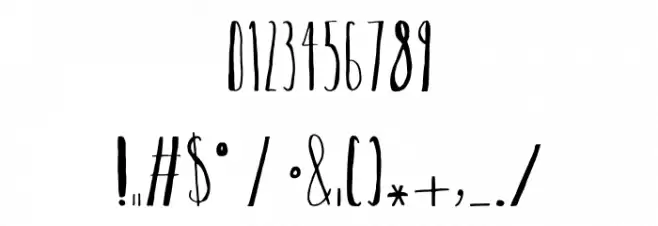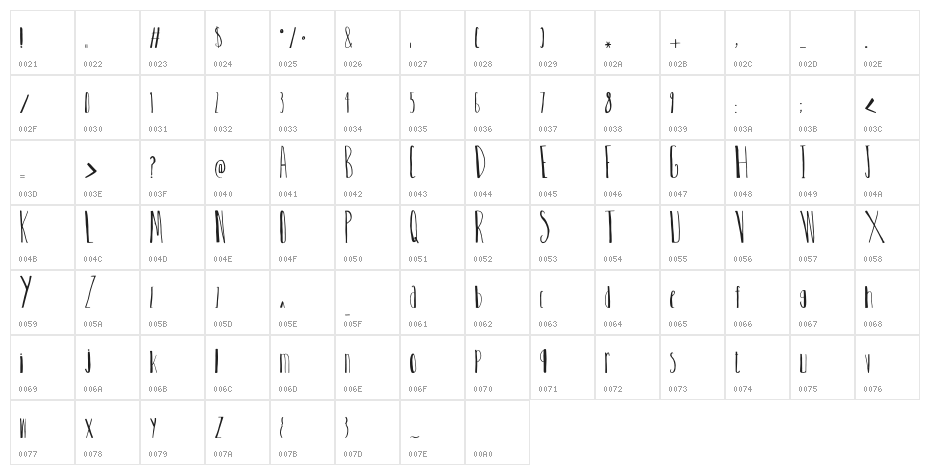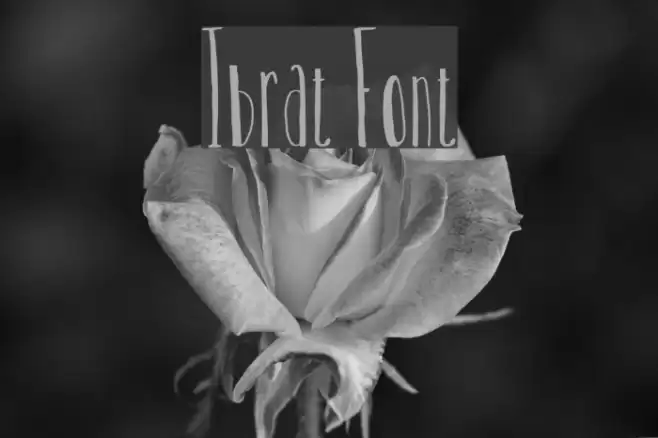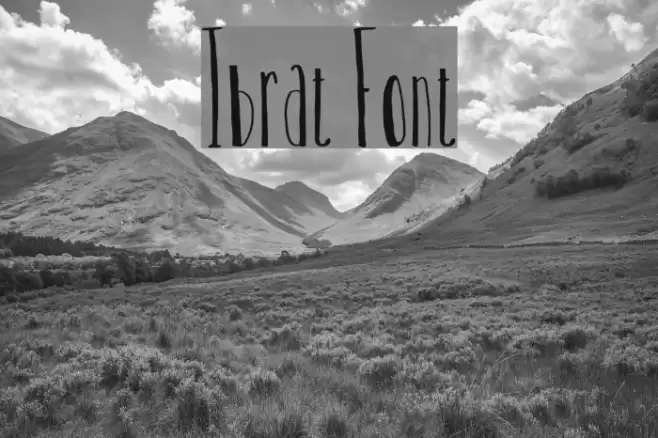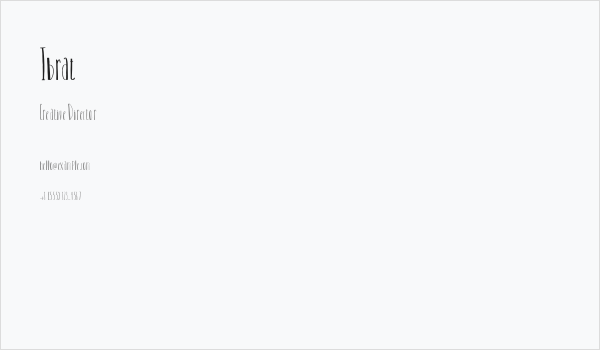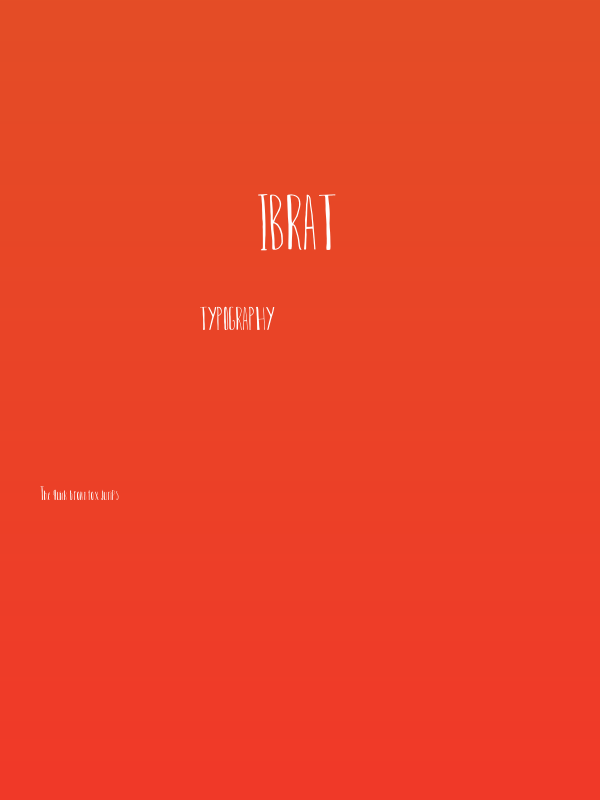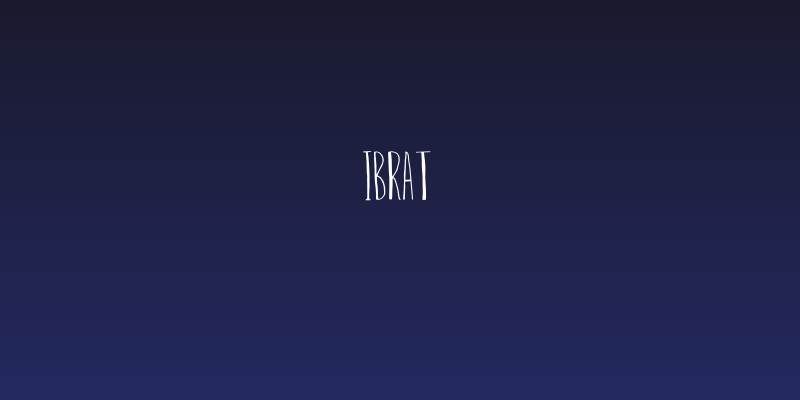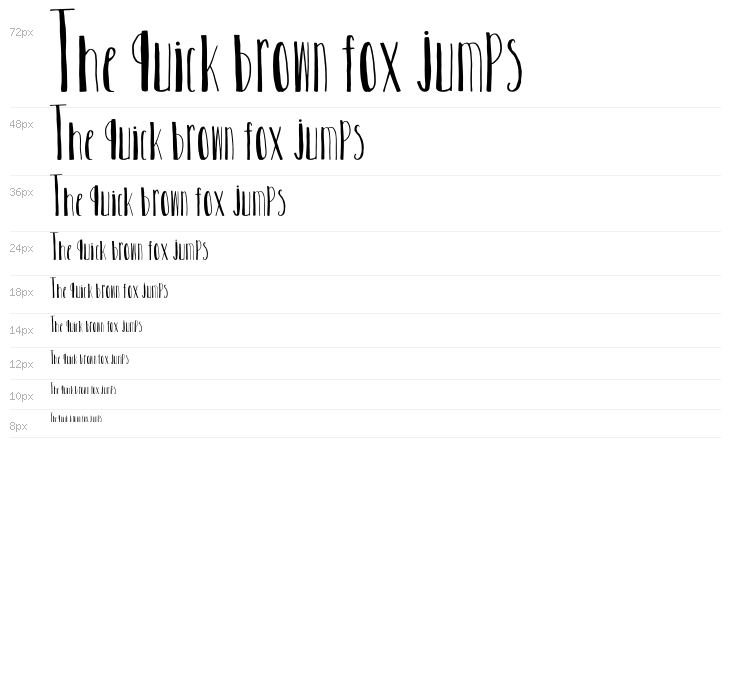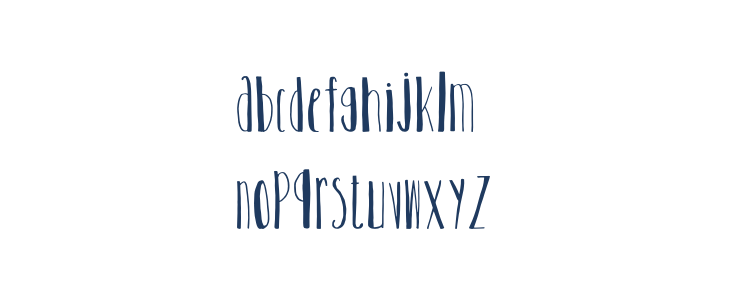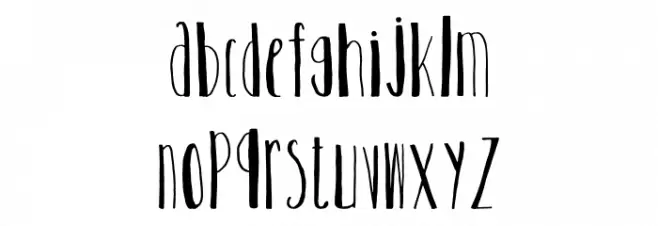
Ibrat Font
Ibrat Description
This font features a distinctive, hand-drawn style with elongated and narrow letterforms. The uppercase letters are tall and slender, while the lowercase letters maintain a similar narrowness, creating a cohesive look. The characters have an organic, whimsical feel, with slight variations in stroke width that add to the hand-crafted appearance. The numbers and special characters follow the same aesthetic, ensuring consistency across all glyphs. This font's playful yet elegant design makes it suitable for creative projects that require a unique and artistic touch.
| Proposed Projects | Ideal for greeting cards, invitations, posters, and artistic branding projects. |